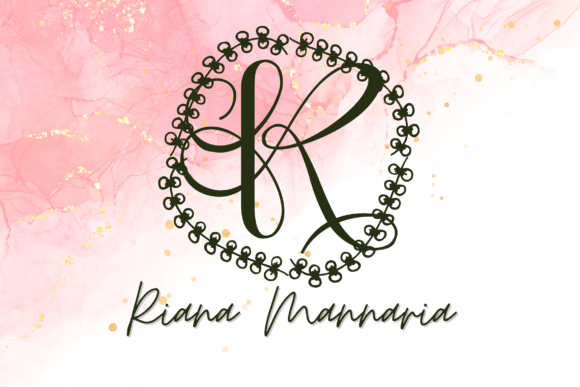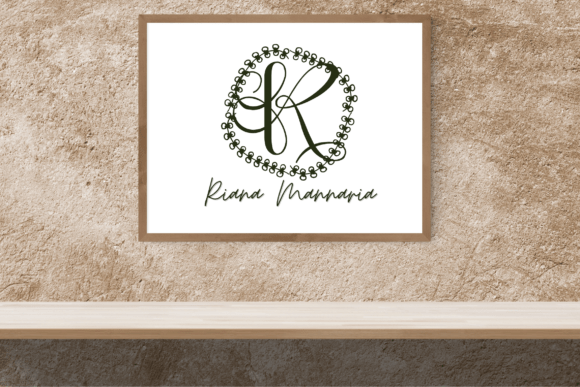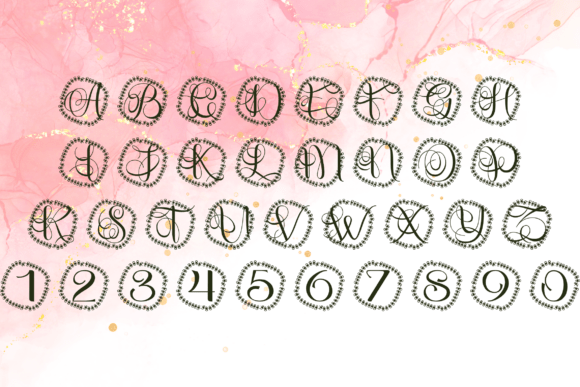
Introducing Florique Monogram Font: Elevate Your Designs with Elegant Botanical Flair
In the world of typography, a well-crafted font can elevate a design from ordinary to extraordinary. For designers and crafters seeking to add a touch of sophistication and organic elegance to their projects, Florique Monogram Font is an exceptional choice. This stunning monogram font, inspired by botanical flourishes and classic lettering, is poised to become a favorite in your design arsenal.
The Essence of Florique Monogram
Florique Monogram is an elegant and high-end monogram font that seamlessly blends timeless sophistication with organic detail. Each uppercase character in this exquisite font is meticulously adorned with floral accents, creating a refined and luxurious aesthetic. The result is a font that exudes classic elegance with a fresh, botanical twist.
What sets Florique Monogram apart is its unique design characteristics, which make it an ideal choice for a variety of applications:
- Botanical Inspiration: The font’s design is inspired by the intricate flourishes found in botanical illustrations, bringing a touch of nature’s beauty to your designs.
- Elegant and Sophisticated: With its classic lettering roots, Florique Monogram embodies a sense of timeless sophistication, perfect for projects that demand a high-end feel.
- Floral Accents: Each uppercase character features delicate floral accents, adding an organic and refined touch to the font.
- Monogram Style: As a monogram font, Florique Monogram is designed to make a statement, whether used as a standalone letter or combined with other typography.
Florique Monogram’s versatility makes it suitable for a range of design projects, including:
- Wedding Branding: Add a touch of elegance to wedding invitations, stationery, and branding with this beautiful monogram font.
- Upscale Packaging: Elevate your packaging designs with a sophisticated and luxurious feel that reflects your brand’s high-end quality.
- Personal Stationery: Create custom stationery that exudes refinement and personality with Florique Monogram.
- Boutique Logos: Give your boutique or small business a distinctive and memorable logo that stands out with this unique font.
Why Choose Florique Monogram Font?
When it comes to selecting a font for your design project, there are several reasons why Florique Monogram stands out:
- Unique and Distinctive: The font’s botanical inspiration and elegant design ensure that your projects will stand out from the crowd.
- High-End Aesthetic: Florique Monogram brings a touch of luxury to any design, making it perfect for projects that require a sophisticated look.
- Versatile: This monogram font can be used in a variety of contexts, from digital designs to print materials.
Tips for Using Florique Monogram Effectively
To get the most out of Florique Monogram Font, consider the following tips:
- Pair with Complementary Fonts: Combine Florique Monogram with clean, simple fonts to create visual interest and balance in your designs.
- Experiment with Colors: While the font itself is elegant, experimenting with different colors can help you achieve the desired mood and style for your project.
- Use as a Focal Point: Given its decorative nature, Florique Monogram works best as a focal point in your design. Use it sparingly to maximize its impact.
Florique Monogram Font is a beautiful and elegant monogram font that brings a touch of botanical sophistication to any design. With its unique floral accents, classic inspiration, and high-end aesthetic, it’s an excellent choice for designers and crafters looking to elevate their projects. Whether you’re working on wedding branding, upscale packaging, personal stationery, or boutique logos, Florique Monogram is sure to add a refined, floral twist that sets your designs apart.
Discover the elegance of Florique Monogram Font and take your designs to new heights of sophistication and style.